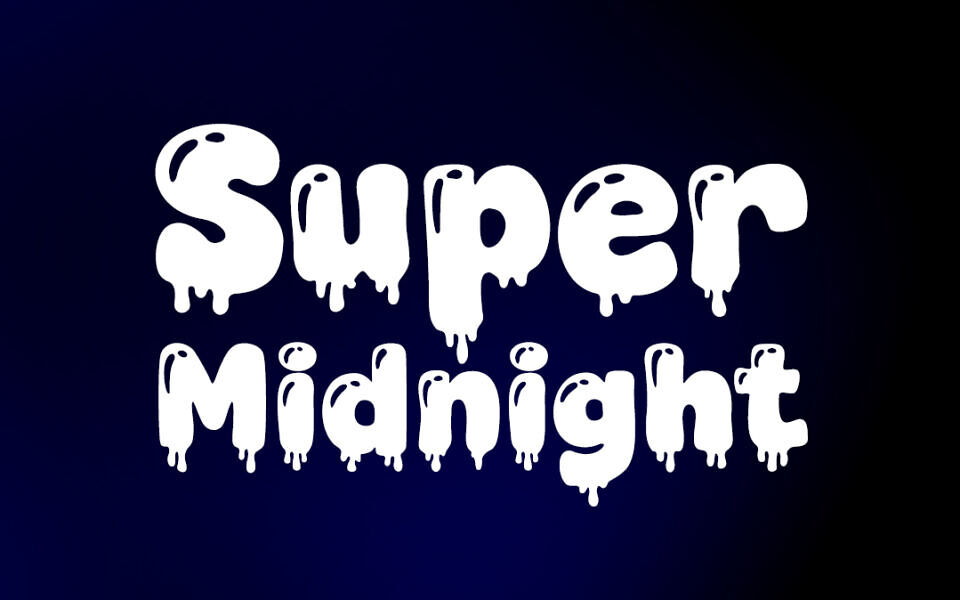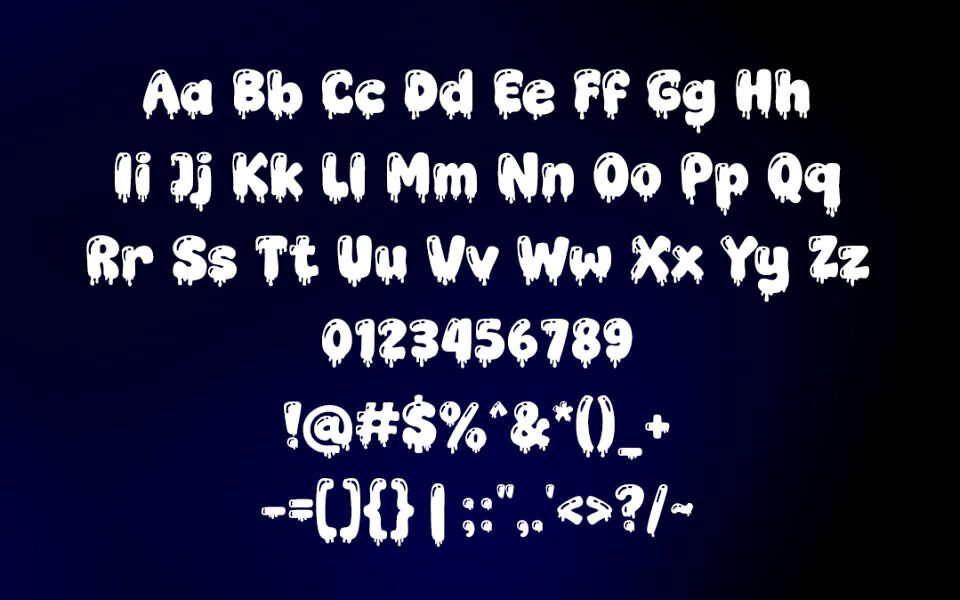
Super Midnight is a free, bold Halloween-themed display font with playful yet eerie character shapes that blend thick, rounded lines and spooky stylistic touches ideal for seasonal designs.
Its heavy, attention-grabbing letterforms work great for posters, party flyers, logos, titles, and haunted event branding, adding a fun, creepy charm to any project.